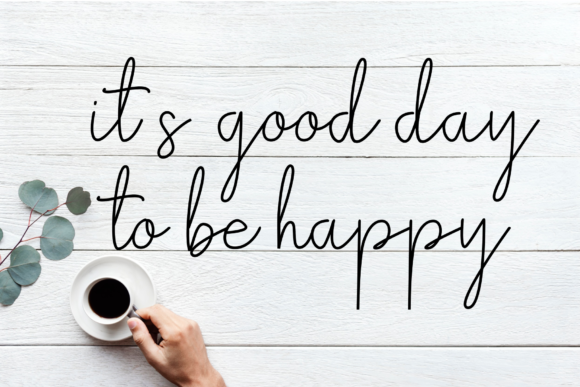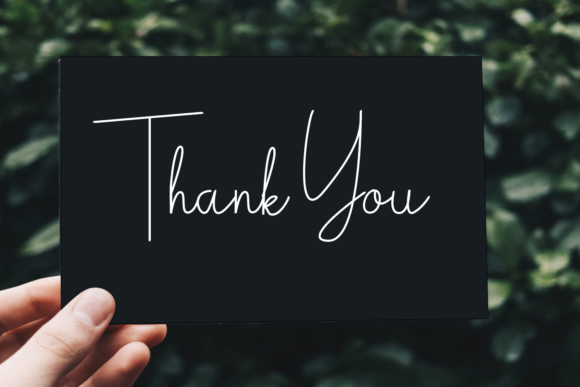
Bethani Signature Font: Elevate Your Designs with Elegance and Sophistication
In the world of design, fonts play a crucial role in conveying the tone and personality of a project. For crafters and designers seeking a unique and elegant handwritten font, Bethani Signature is an exceptional choice. This beautiful font is perfect for creating stunning designs that exude a personalized style, making it ideal for various applications such as wedding invitations, thank you cards, weddings, greeting cards, logos, and more.
What Makes Bethani Signature Font Stand Out?
Bethani Signature is a one-of-a-kind font that boasts a distinctive, handcrafted look. Its elegant and refined appearance makes it perfect for designs that require a touch of sophistication. The font’s unique characteristics include:
- Handwritten style: Bethani Signature has a beautiful, handwritten appearance that adds a personal touch to any design.
- Elegant and refined: The font’s elegant and refined look makes it perfect for designs that require a touch of sophistication.
- Unique and distinctive: Bethani Signature’s one-of-a-kind design ensures that your projects stand out from the crowd.
Bethani Signature font is versatile and can be used for a wide range of design applications, including:
- Wedding invitations: Create stunning wedding invitations that set the tone for a beautiful and elegant wedding celebration.
- Thank you cards: Express your gratitude with beautifully designed thank you cards that showcase your personal style.
- Greeting cards: Create unique and personalized greeting cards for special occasions such as birthdays, anniversaries, and holidays.
- Logos: Use Bethani Signature font to create a distinctive and memorable logo for your business or brand.
Why Choose Bethani Signature Font?
When it comes to selecting a font for your design project, there are many options to choose from. However, Bethani Signature font stands out from the rest due to its:
- High-quality design: Bethani Signature font is meticulously crafted to ensure that it looks beautiful and elegant in any design.
- Flexibility: The font’s versatility makes it perfect for a wide range of design applications.
- Unique style: Bethani Signature font’s distinctive style ensures that your designs stand out from the crowd.
Tips for Using Bethani Signature Font Effectively
To get the most out of Bethani Signature font, here are some tips to keep in mind:
- Pair with complementary fonts: Combine Bethani Signature font with complementary fonts to create a beautiful and harmonious design.
- Use for headlines and titles: Use Bethani Signature font for headlines and titles to add a touch of elegance and sophistication.
- Experiment with colors: Try out different colors to find the perfect match for your design and font.
| Font Name | Bethani Signature Font |
| Author | alanstudio99 |
Bethani Signature font is a unique and elegant handwritten font that is perfect for designers and crafters seeking to add a touch of sophistication to their projects. Its versatility, high-quality design, and distinctive style make it an excellent choice for a wide range of design applications. Whether you’re creating wedding invitations, thank you cards, logos, or greeting cards, Bethani Signature font is sure to elevate your designs and make them stand out from the crowd.